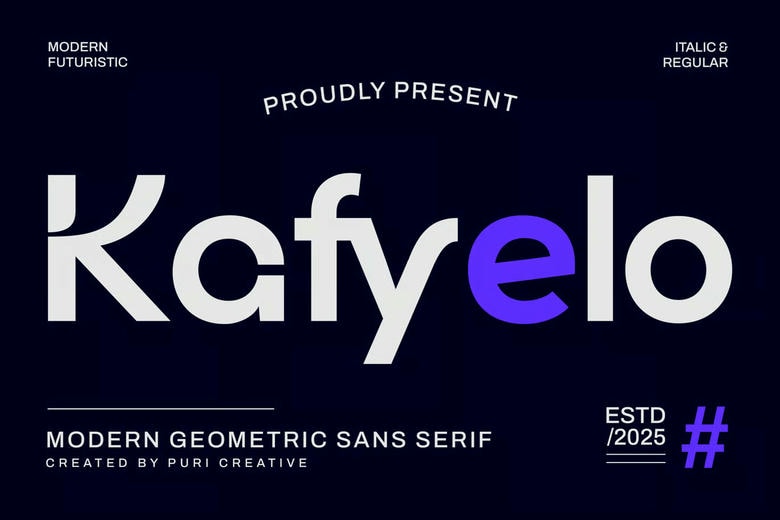
Kafyelo Font
Kafyelo is a Modern Sans Serif font, where simplicity and minimalism of the design are combined with smooth lines and minimal decor. It is flexible in usage and readability on the digital as well as print media being designed in Regular and Italic forms.
Due to its sophisticated geometry and gentle lines, Kafyelo is ideal to be used in branding, editorial layouts, web interface, and elegant headlines. This font is PUA encoded so you can have access to all the glyphs without problems!
Kafyelo Sans Serif Font